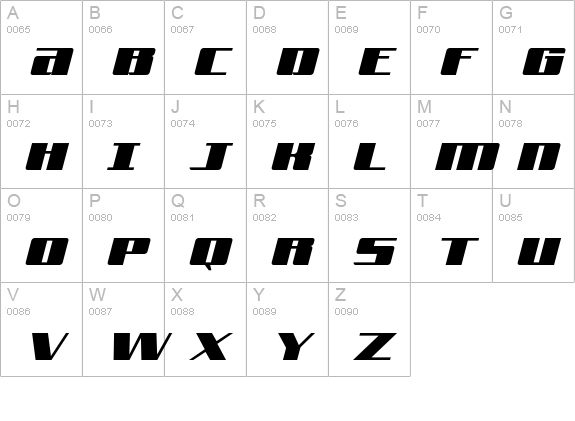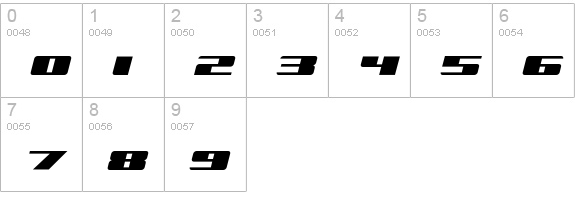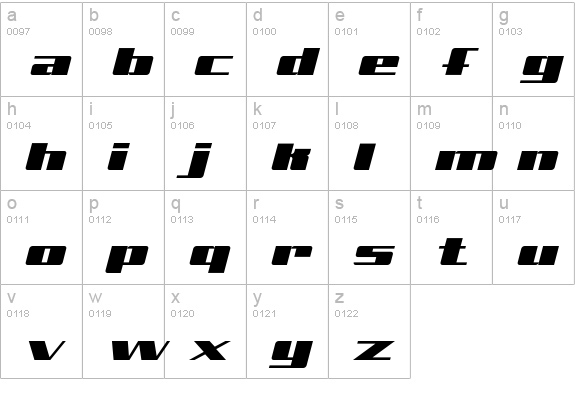
FreeLine-Cruiser Font Details
Introducing FreeLine-Cruiser, a sleek and sophisticated font that exudes elegance and modernity. This font is perfect for adding a touch of sophistication to any design project, whether it be for branding, advertising, or editorial purposes. With its clean lines and stylish curves, FreeLine-Cruiser is sure to make a bold statement. What sets FreeLine-Cruiser apart is that it is completely free to download at FontsMarket.com. This means that you can access this stunning font without any cost, allowing you to elevate your designs without breaking the bank. Don't miss out on the opportunity to add FreeLine-Cruiser to your font collection today and take your projects to the next level with this striking typeface.